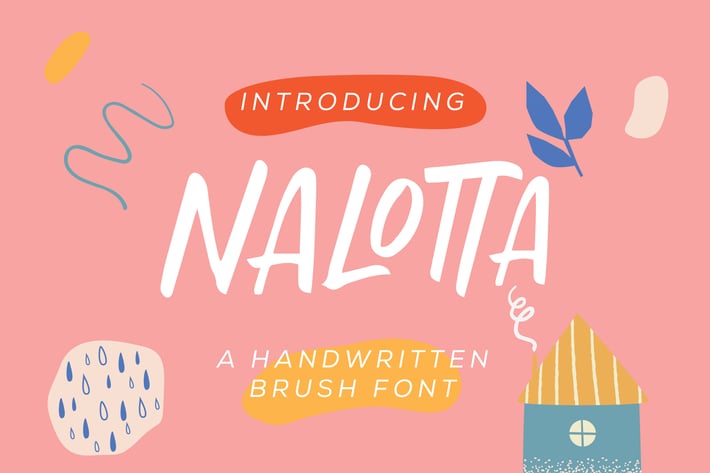
Nalotta - Handwritten Brush Font
Nalotta is perfect to use for Logotype, Letterhead, Poster, Apparel Design, Label and etc.
The alternative characters were divided into several features such as Stylistic Alternates and Ligature.